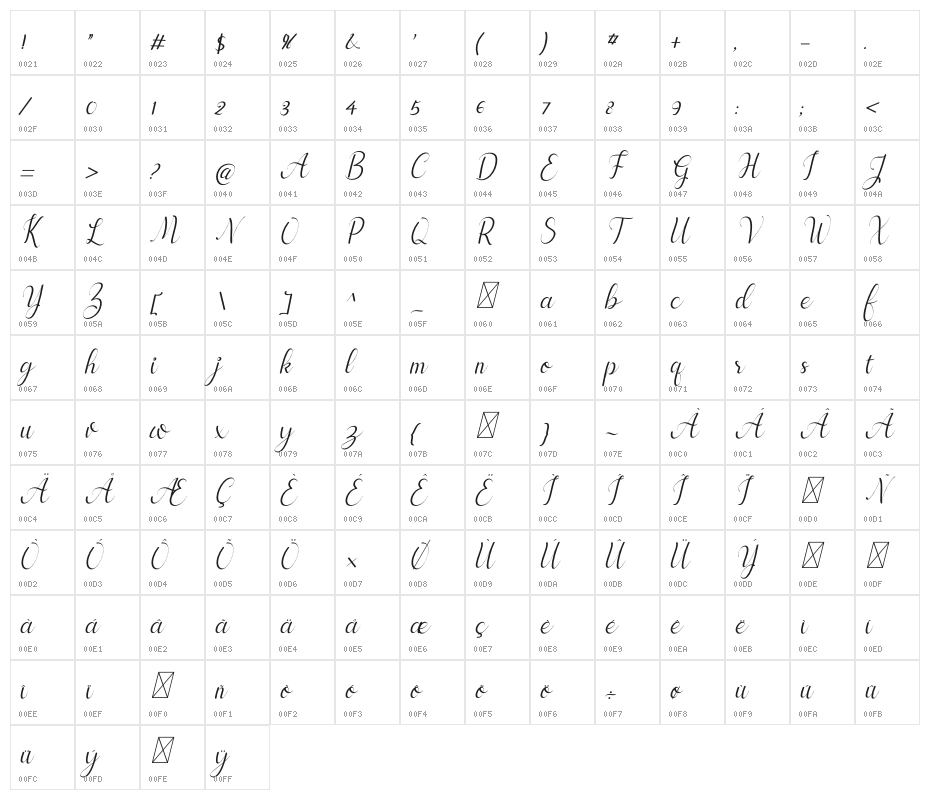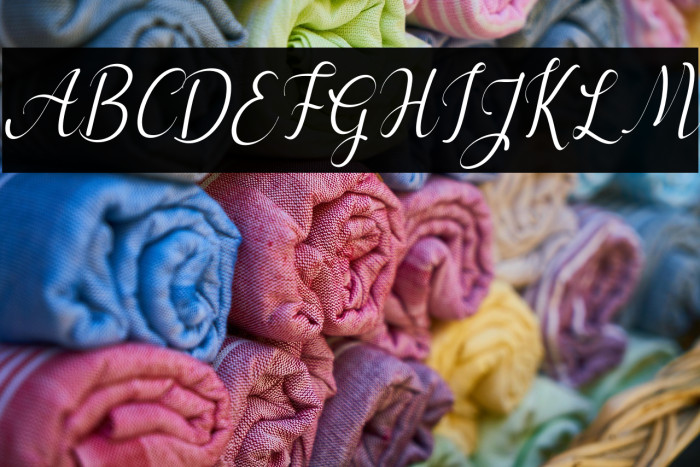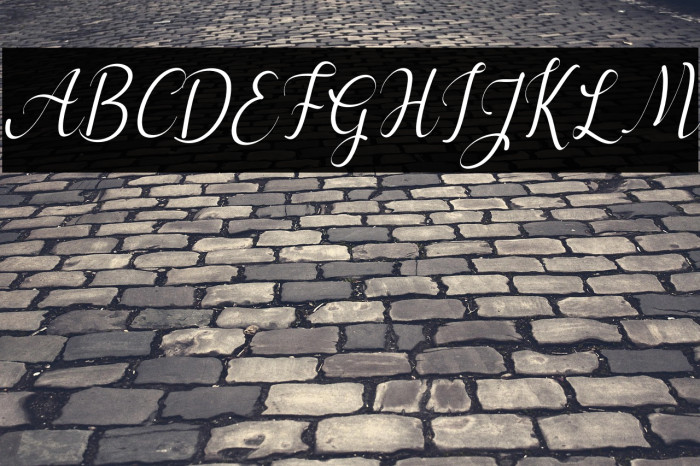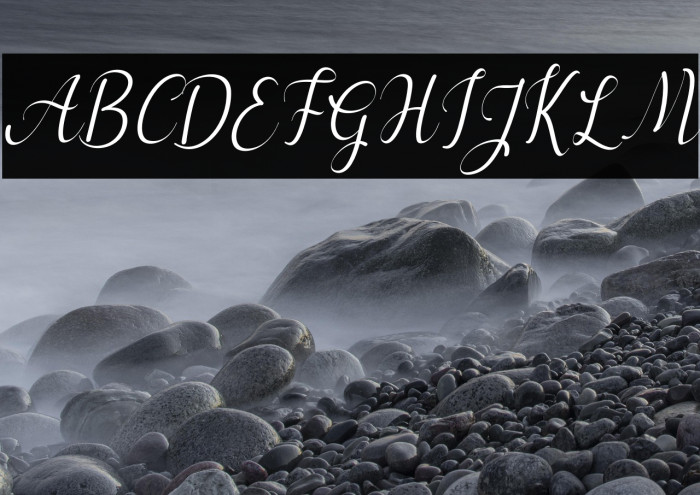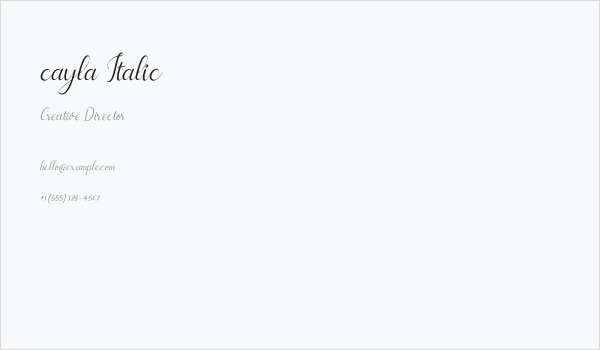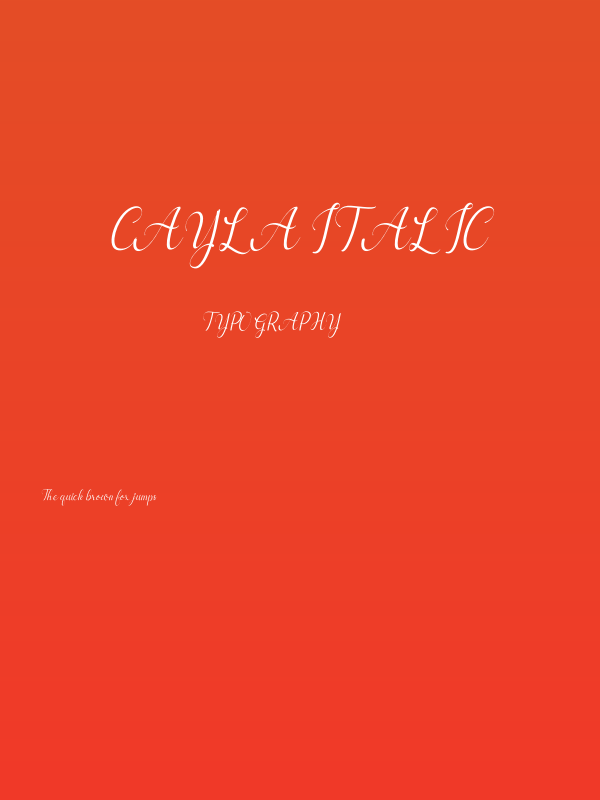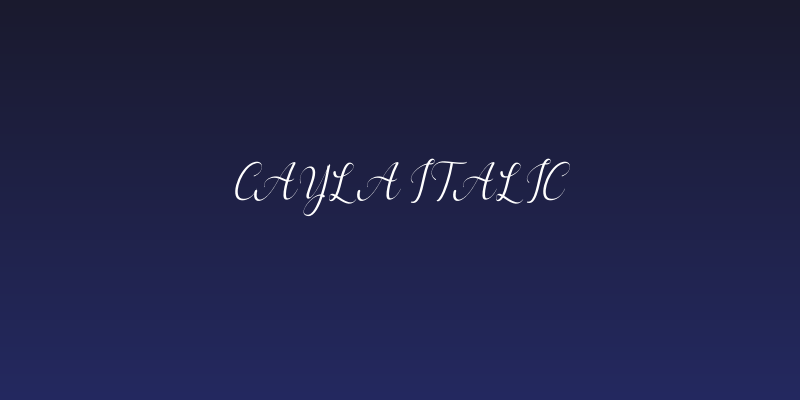
cayla Italic Font
cayla Italic Description
This elegant script font features flowing, cursive letters with a sophisticated and graceful appearance. The characters are connected, creating a seamless and fluid look that is both stylish and refined. The uppercase letters are slightly more ornate, with delicate flourishes that add a touch of elegance. The lowercase letters maintain a consistent slant, enhancing the overall cohesion of the font. The numerals are designed to match the script style, with smooth curves and a balanced weight. Special characters are included, maintaining the same elegant aesthetic. This font is perfect for projects that require a touch of class and sophistication.